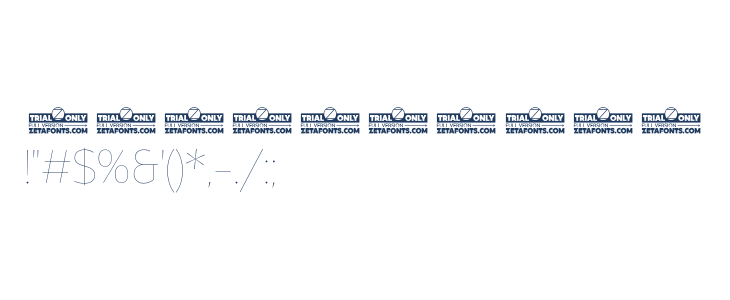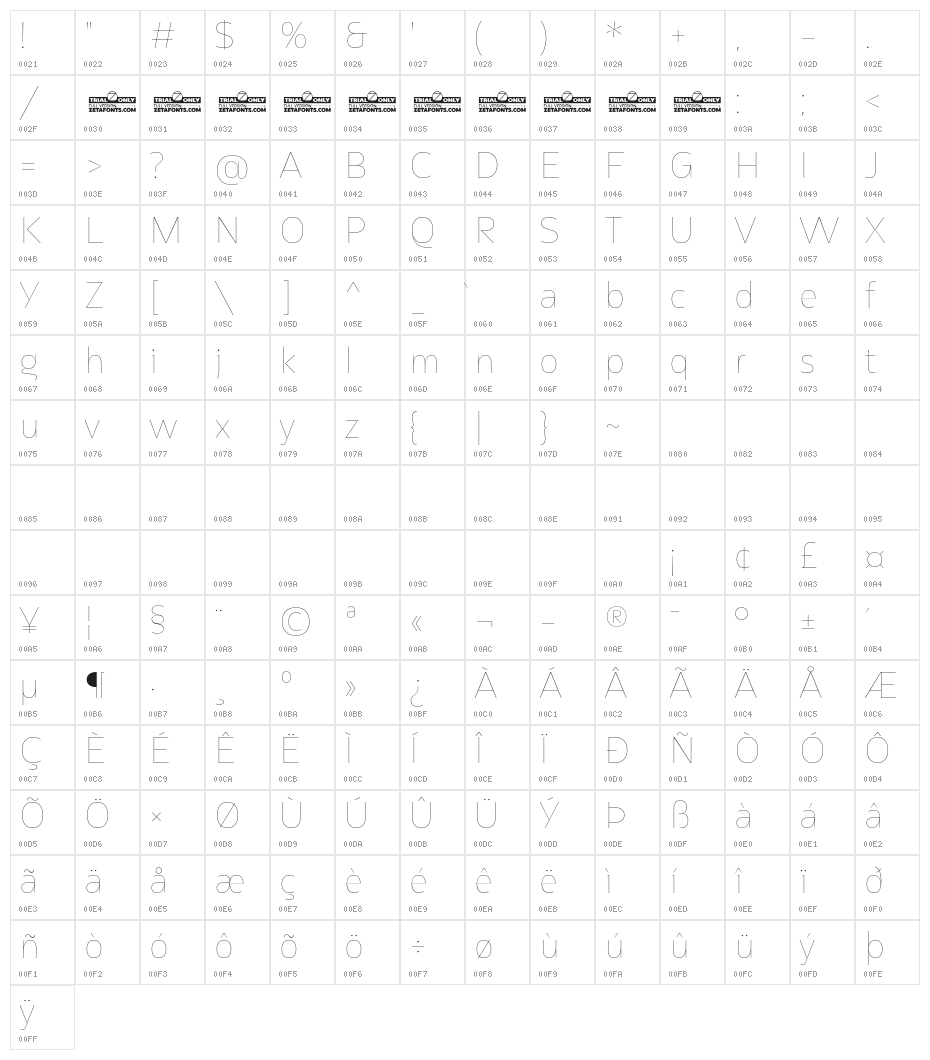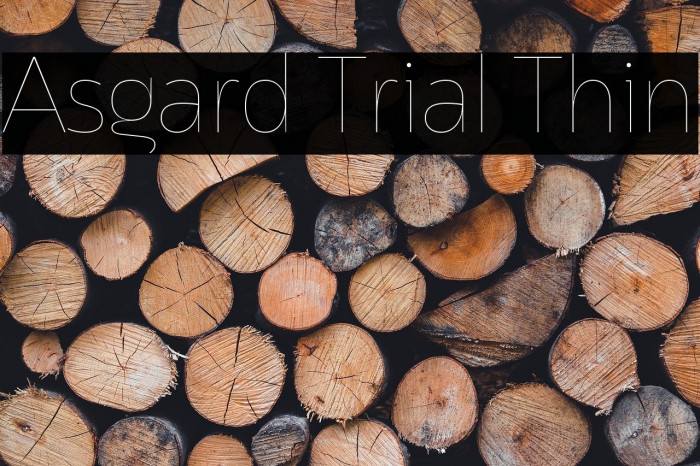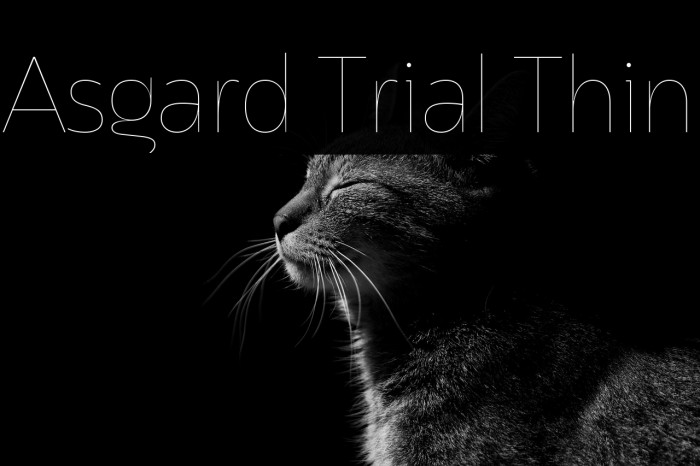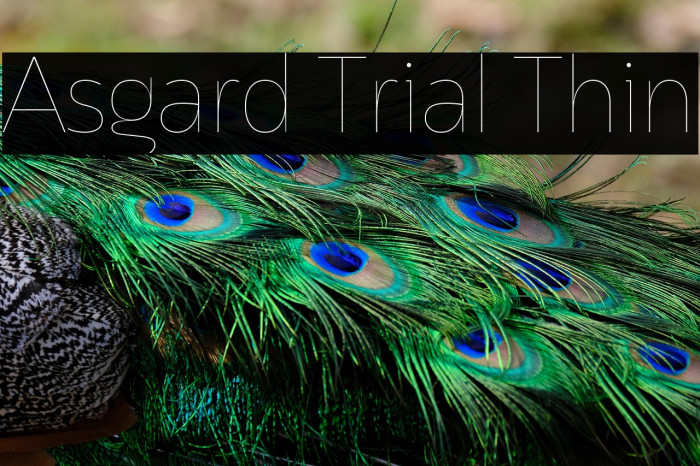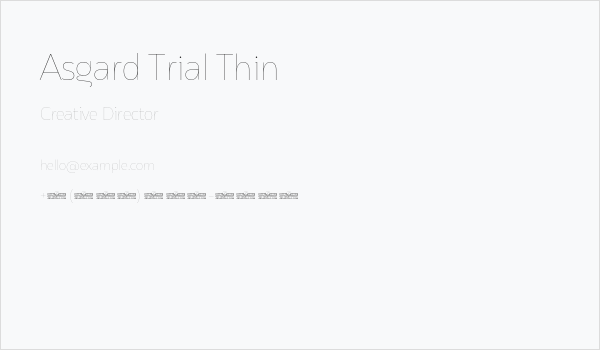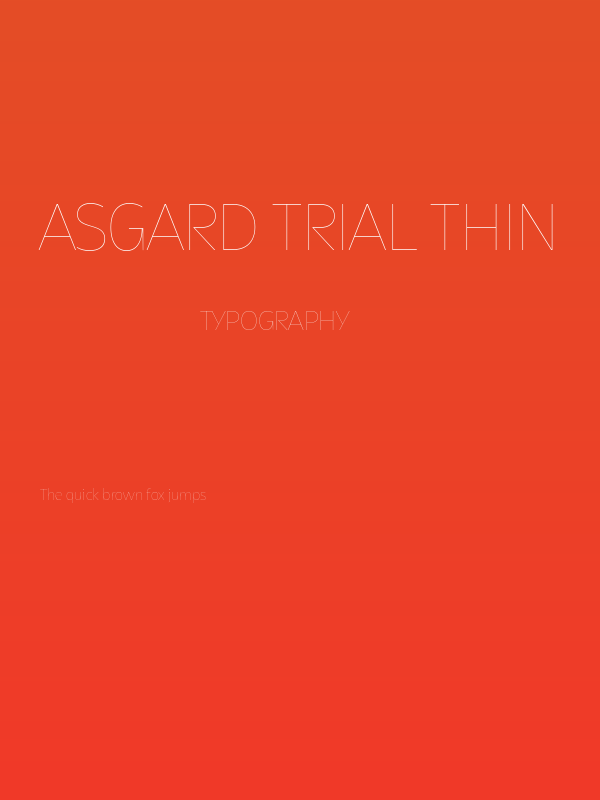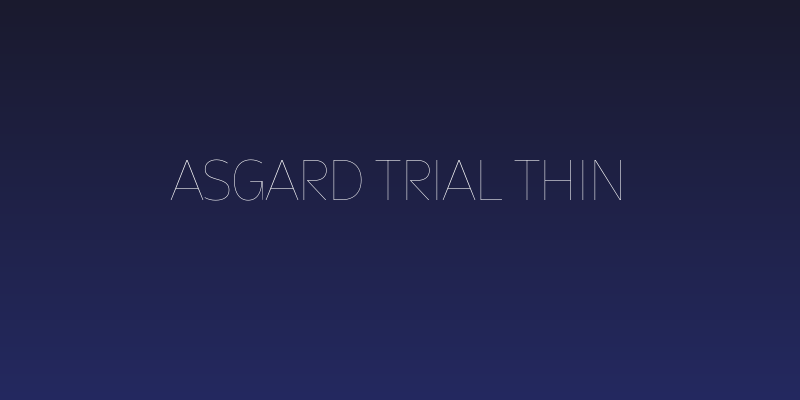
Asgard Trial Thin Font
Asgard Trial Thin Description
This font features a sleek, minimalist design with thin, clean lines that convey a modern and sophisticated aesthetic. The characters are evenly spaced, offering a balanced and airy appearance. The uppercase letters are tall and elegant, while the lowercase letters maintain a consistent style that complements the overall look. The numerals and special characters are designed with the same thin strokes, ensuring uniformity across all elements. This font's simplicity and clarity make it versatile for various design applications.
| Proposed Projects | Ideal for branding, editorial design, digital interfaces, and minimalist posters. |